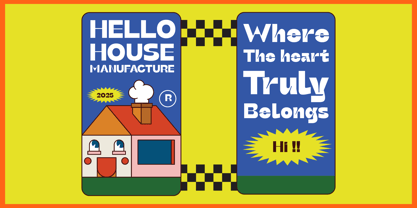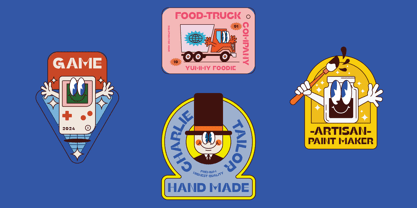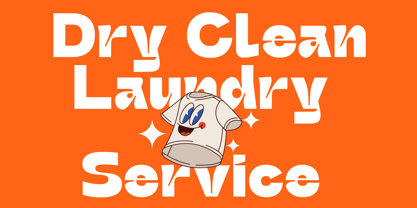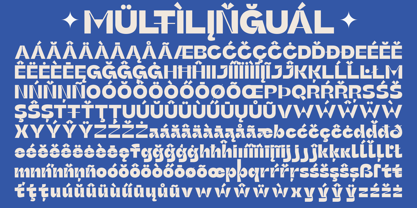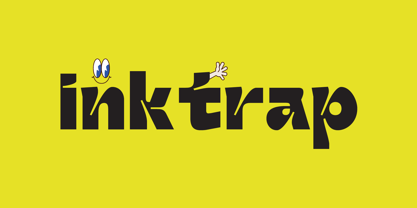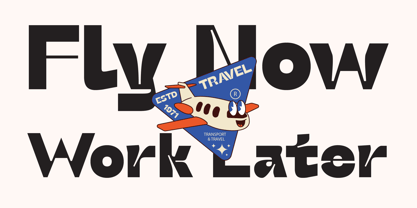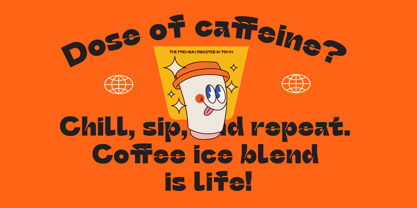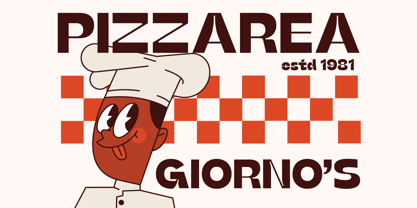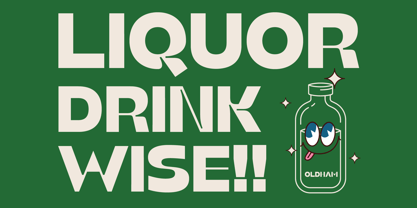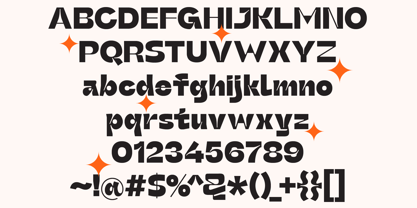
Popart Pixel
by Jolicia Type
Popart Pixel is a bold sans serif typeface designed with striking thickness and large inktraps, giving it a unique and recognizable character. Inspired by the vibrant aesthetics of Pop Art, this font embodies a playful, daring, and expressive spirit—perfect for designs that demand attention.
With its strong letterforms and solid geometric structure, Popart Pixel delivers a futuristic yet retro feel, making it ideal for branding, posters, headlines, and various creative projects. The deep inktraps not only serve as a stylistic element but also enhance the font’s dynamic personality, creating a visually impactful and distinctive look.
Designed for both uniqueness and readability, Popart Pixel ensures clarity across different sizes while maintaining its bold, energetic essence. Whether you’re crafting a statement piece or looking for a font that exudes creativity, this typeface is your go-to choice.
Popart Pixel is more than just a font—it’s a design statement that brings the boldness of Pop Art into modern typography.